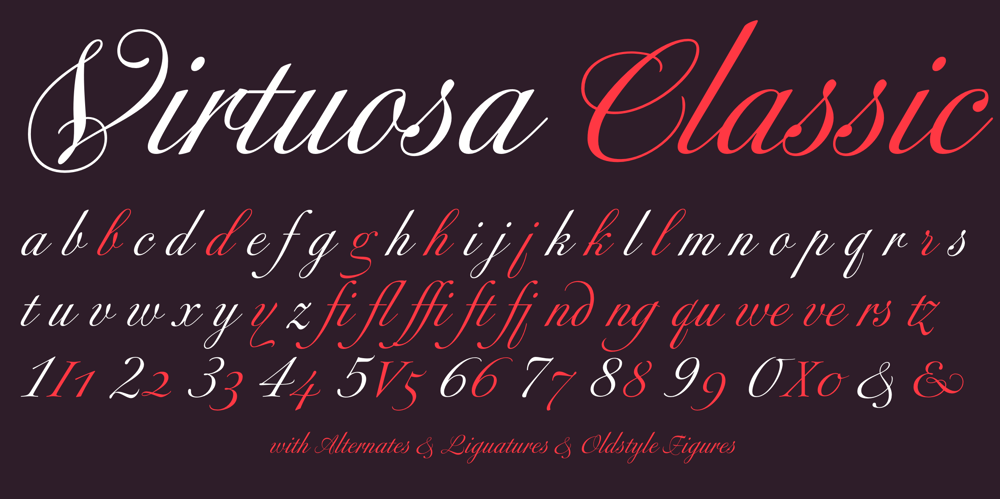
Virtuosa Classic Font Family was designed by Hermann Zapf, Akira Kobayashi and published by Linotype. Virtuosa Classic contains 1 styles and family package options. Virtuosa Classicis the 21st century OpenType re-release of a classic Hermann Zapf design, his very first script typeface, Virtuosa. Based on the same sketches that would inspire Zapfino 50 years later, Hermann Zapf developed Virtuosa in 1948-49. It was originally released in metal in 1952. Virtuosa nova is an English copperplate script with character. The font includes two form variants for each capital letter, and there are a number of lowercase alternates and ligatures, too.